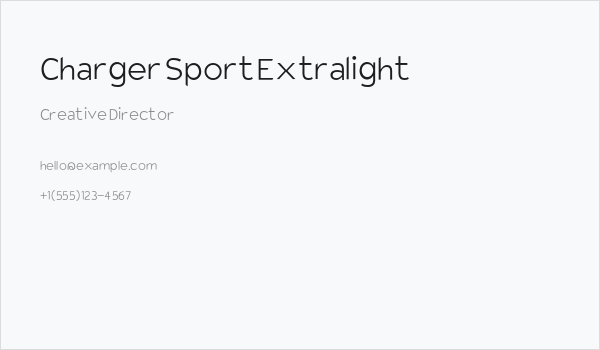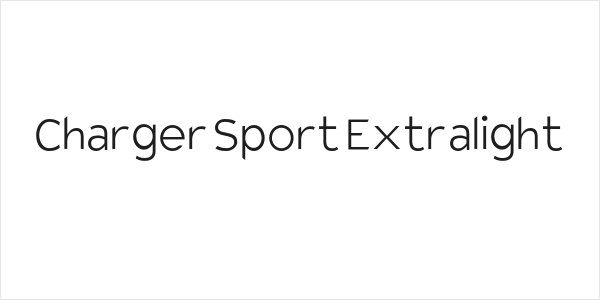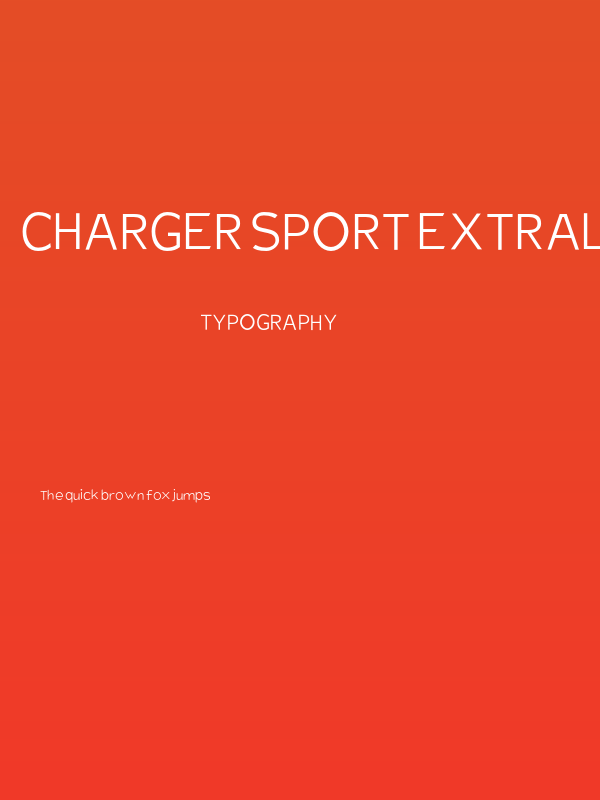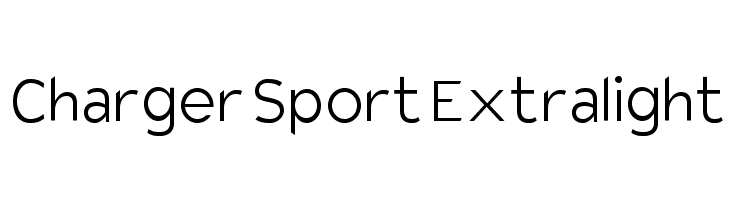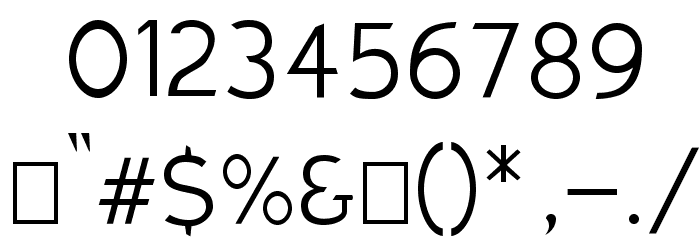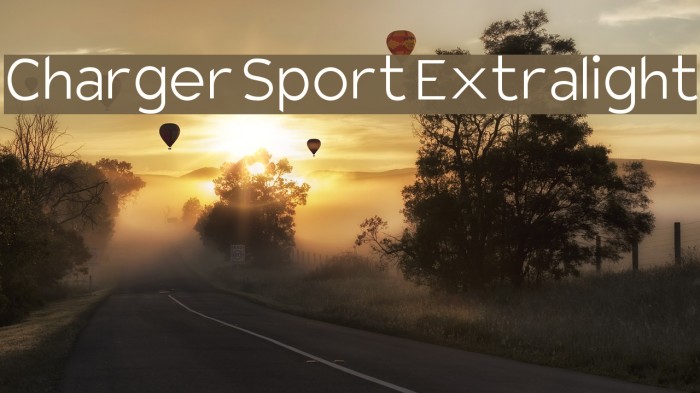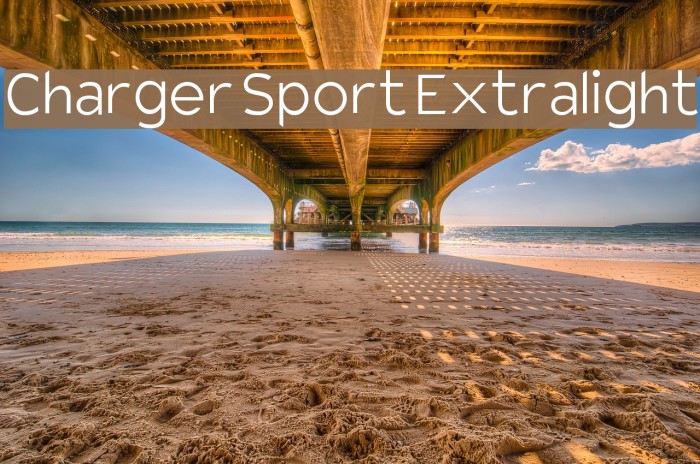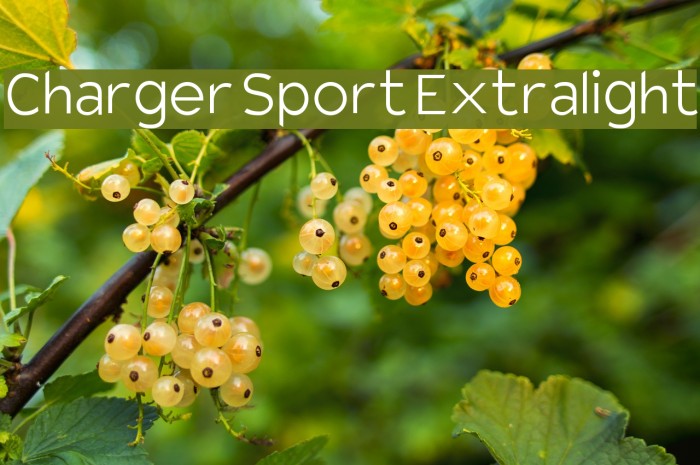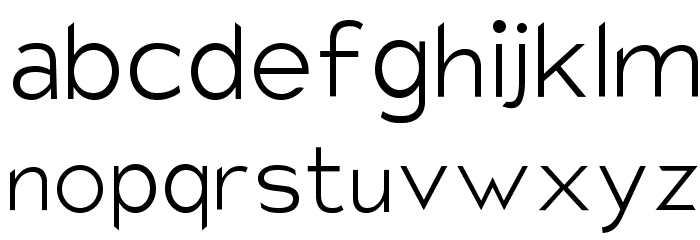
Charger Sport Extralight Font
Charger Sport Extralight Description
This font features a clean and modern sans-serif design with a geometric structure. The characters are uniform and balanced, providing a sleek and professional appearance. The uppercase letters are bold and commanding, while the lowercase letters maintain a consistent style that complements the overall aesthetic. The numerals are clear and easily distinguishable, making them suitable for a variety of applications. Special characters are well-integrated, maintaining the font's cohesive look. The overall design is minimalistic, emphasizing readability and versatility.
| Proposed Projects | Ideal for branding, corporate materials, digital interfaces, and editorial design. |